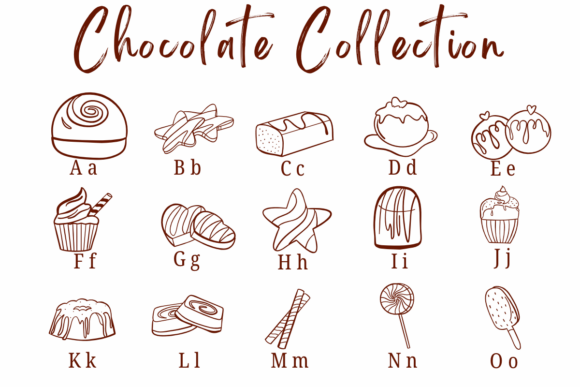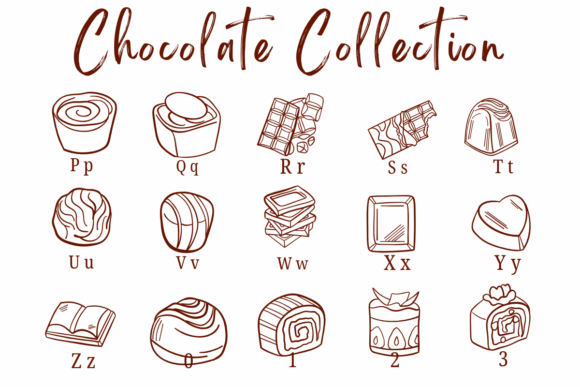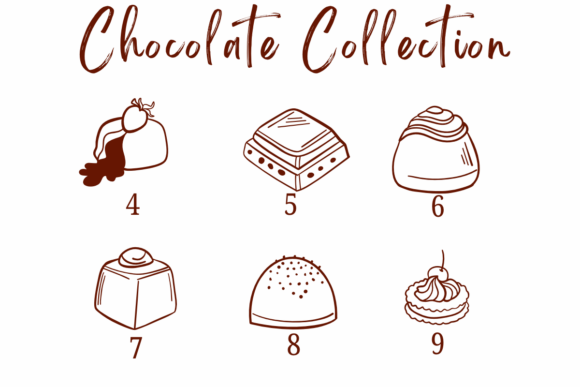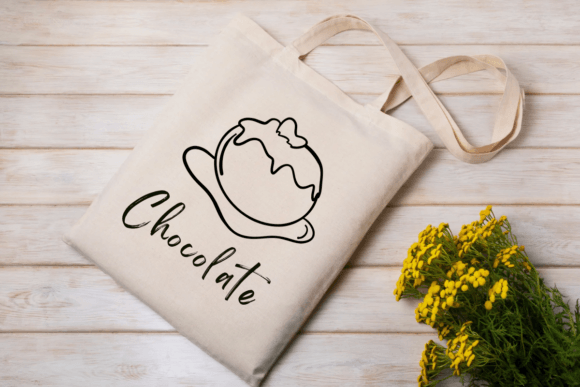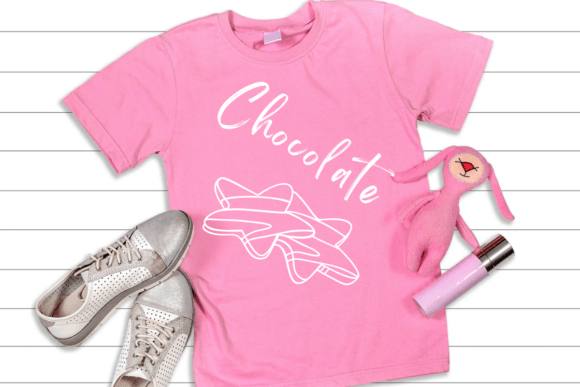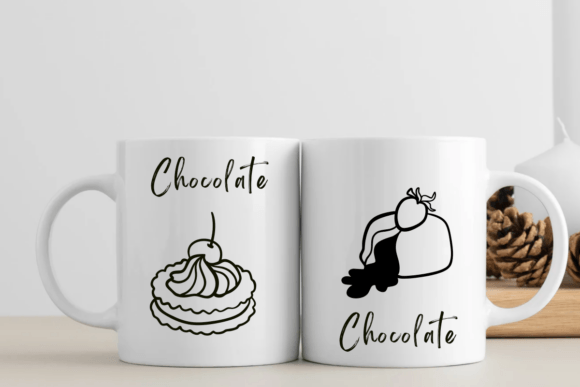
Introduction to Chocolate Collection Font
Chocolate Collection is a fun dingbat font filled with different chocolate shapes and designs.
Great for adding a tasty, chocolate-themed look to your projects, cards, and decorations .